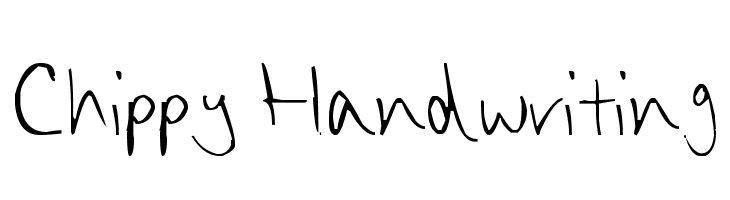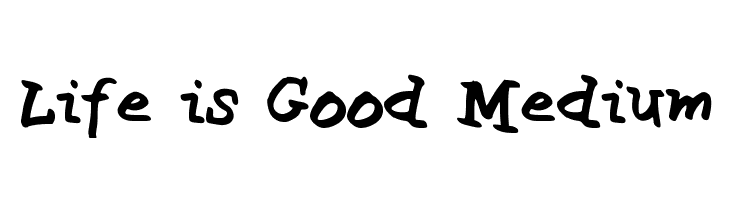
A playful, hand-drawn font with bold, irregular strokes and a whimsical style.
A bold, slanted font with dynamic strokes and a modern, energetic style.
A playful, bold handwritten font with a lively and informal style.
A fluid, wave-inspired script font with smooth, continuous lines.
A playful, handwritten font with irregular strokes and a casual style.
An ornate, calligraphic font with intricate swirls and flourishes.